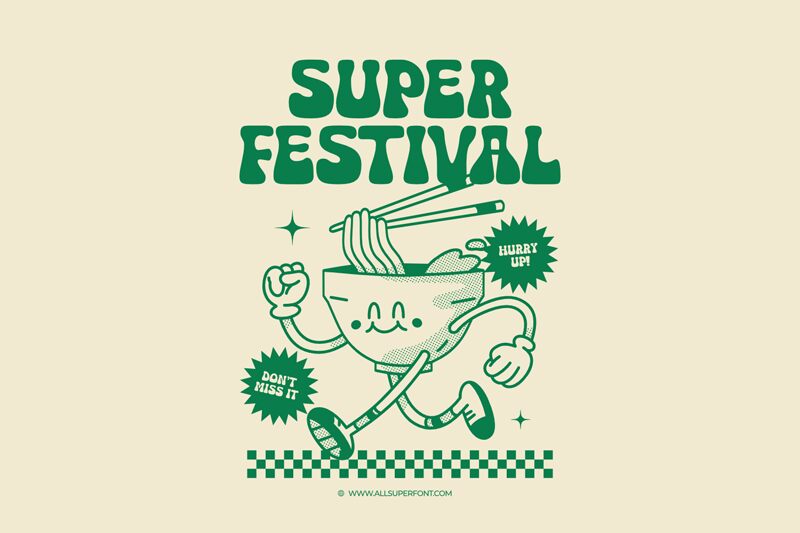
Super Festival
Super Festival, a creation by designer fsuarez913, captivates with its vibrant, retro-inspired aesthetics. This bold, groovy font blends the coolness of vintage typography with the assertiveness of boxy letterforms, resulting in a unique visual experience. Its striking appearance evokes a sense of nostalgic energy, making it a standout choice for designs seeking to capture the spirit of the past while maintaining a modern edge.
Versatile and attention-grabbing, Super Festival lends itself effortlessly to a variety of design applications. Its bold, eye-catching nature makes it an excellent selection for headlines, logos, posters, and other promotional materials where a strong, impactful presence is desired. Whether designing for a retro-themed event, a lively festival, or a brand aiming to convey a sense of playful dynamism, Super Festival offers a captivating typographic solution that is sure to leave a lasting impression.